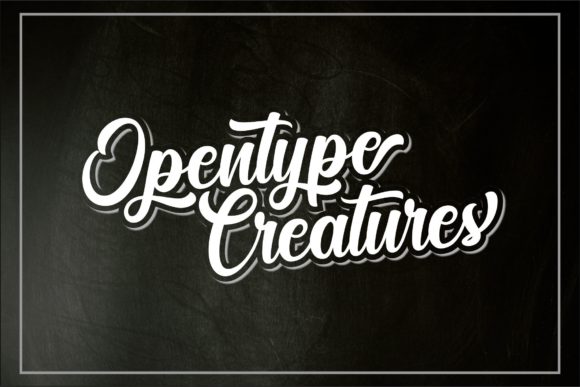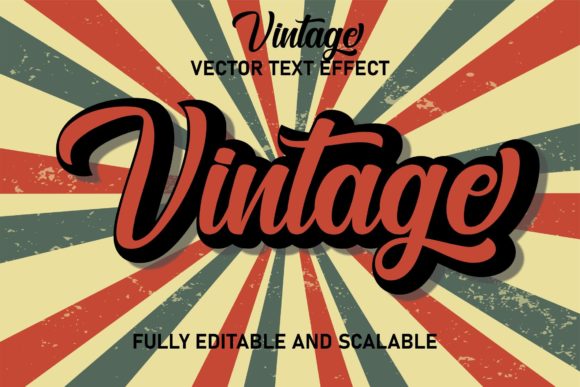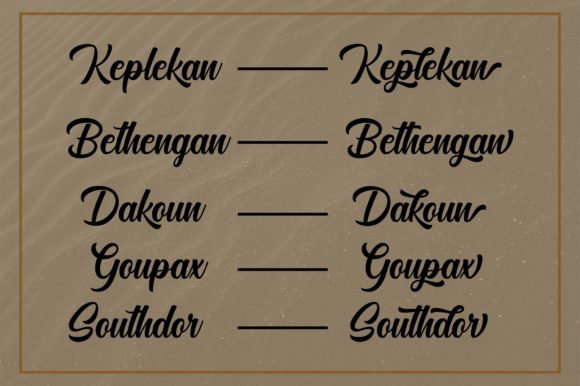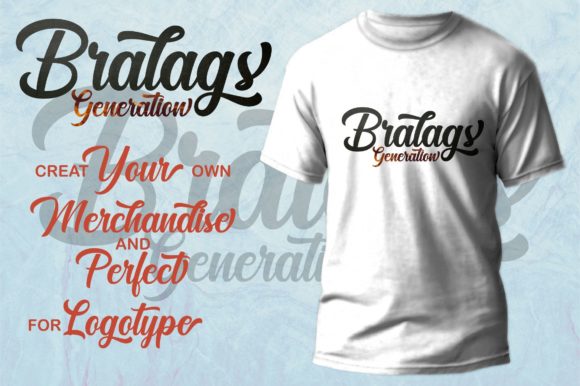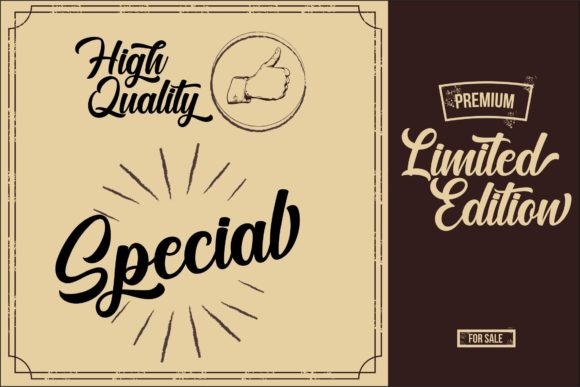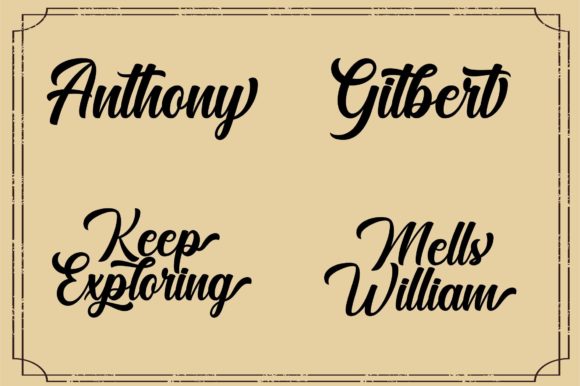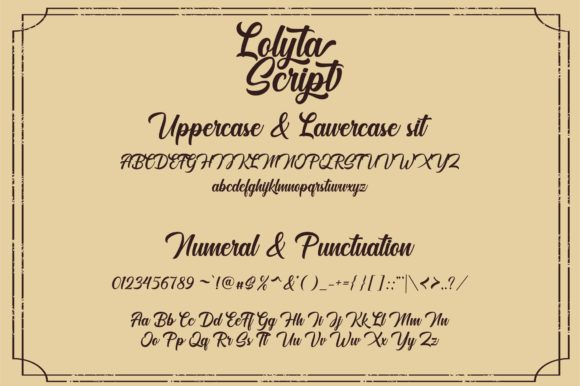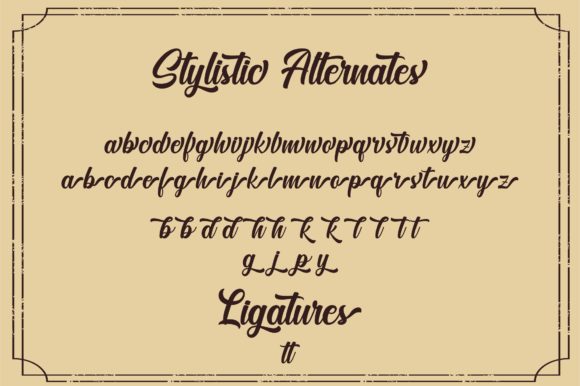
Lolyta Font
About Lolyta Font
Lolyta is a stunning script font that will captivate your heart with its unique and timeless style. Its distinctive and versatile design is bound to inspire awe, making it a perfect choice for creating breathtaking designs. Whether you’re working on headlines, logos, or other creative projects, Lolyta is here to infuse them with a touch of elegance and charm.
This font is expertly crafted to add a stylish and sophisticated flair to your headlines and logotype projects. Its strong and confident appearance exudes a dynamic energy that can breathe life into your designs. The font’s nostalgic character further enhances its appeal, giving your creations a sense of timeless beauty.
With Lolyta’s PUA encoding, accessing its diverse range of glyphs and swashes is a breeze. This feature empowers you to customize your typography effortlessly, adding exquisite details and flourishes to elevate your designs even further. Whether you’re designing for branding, stationery, or any other project, Lolyta offers you the creative freedom to bring your vision to life.
Fall in love with Lolyta’s distinct charm and let it be the centerpiece of your design journey. Its ability to combine a classic aesthetic with modern elegance makes it a font that truly stands out, leaving a lasting impact on any project it graces.